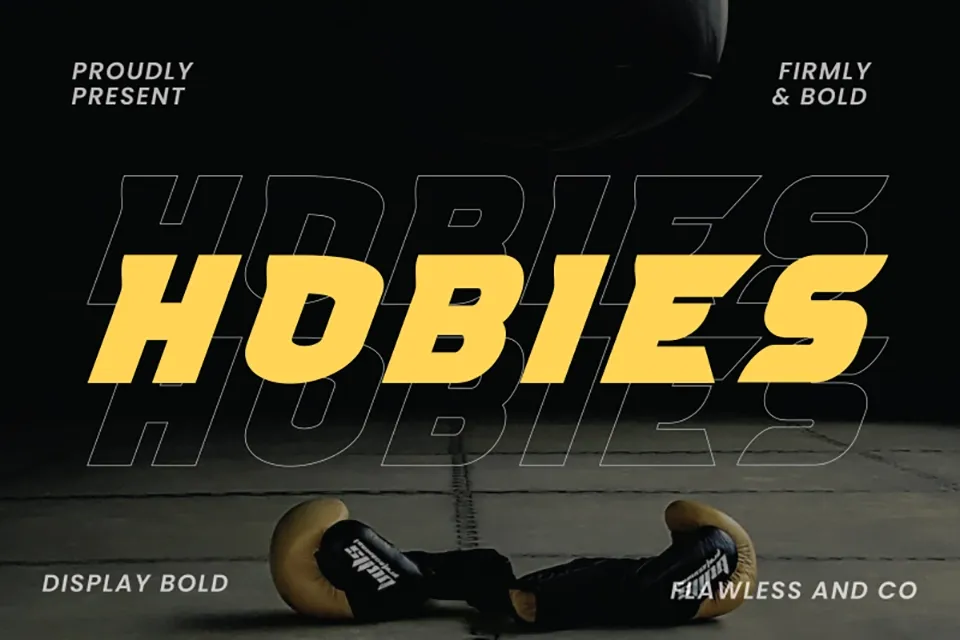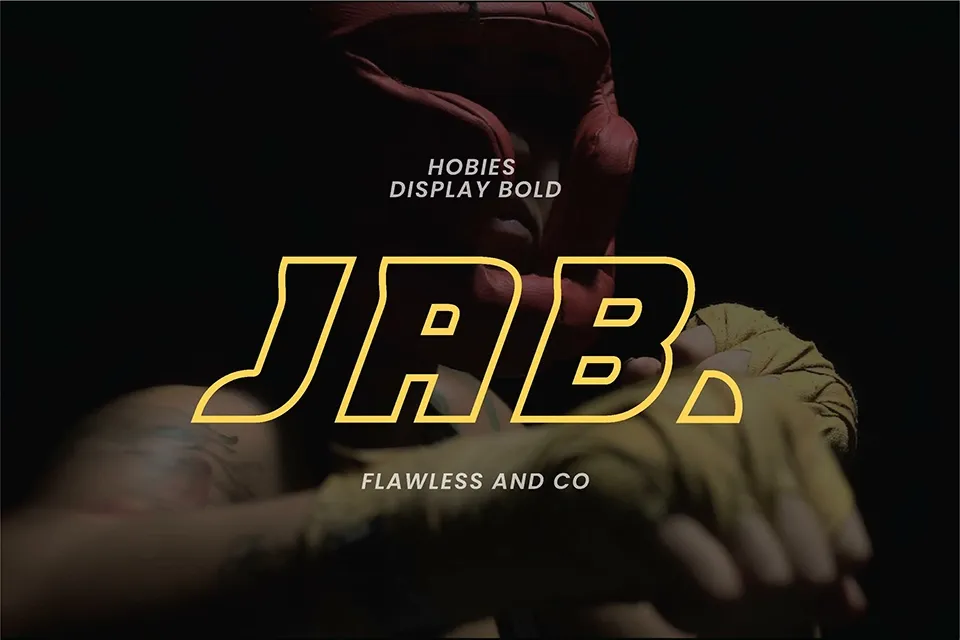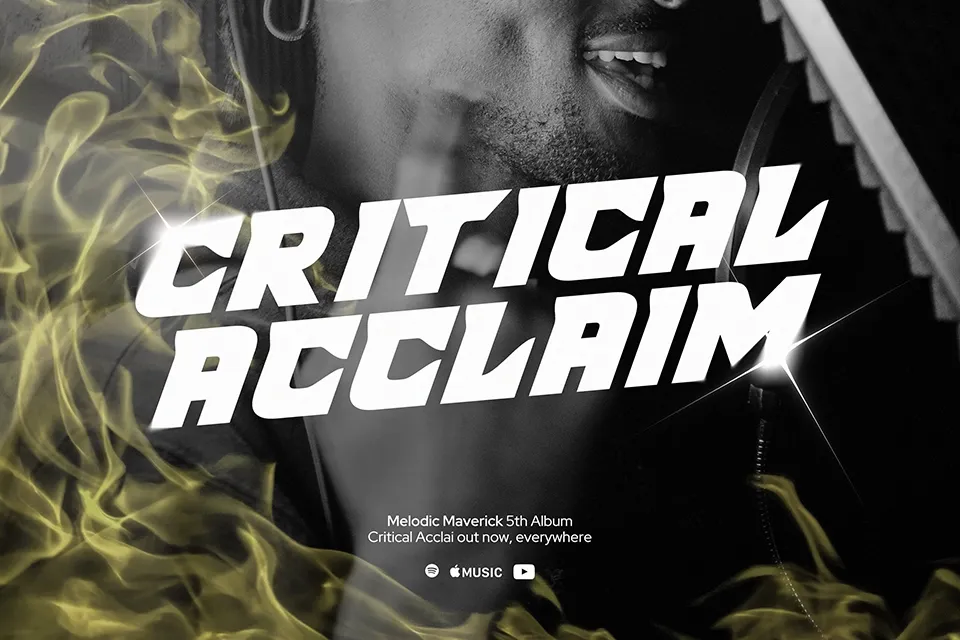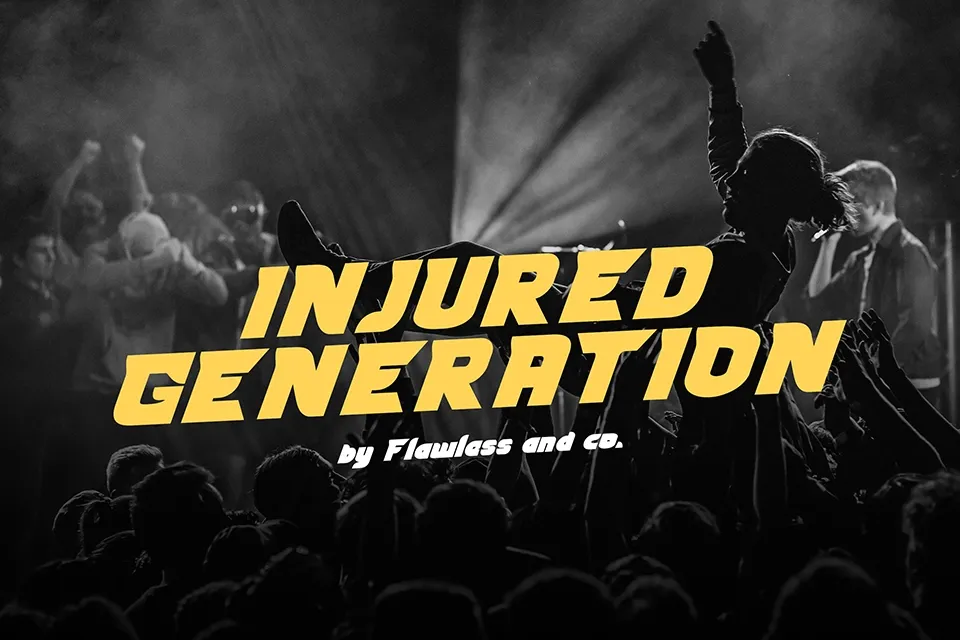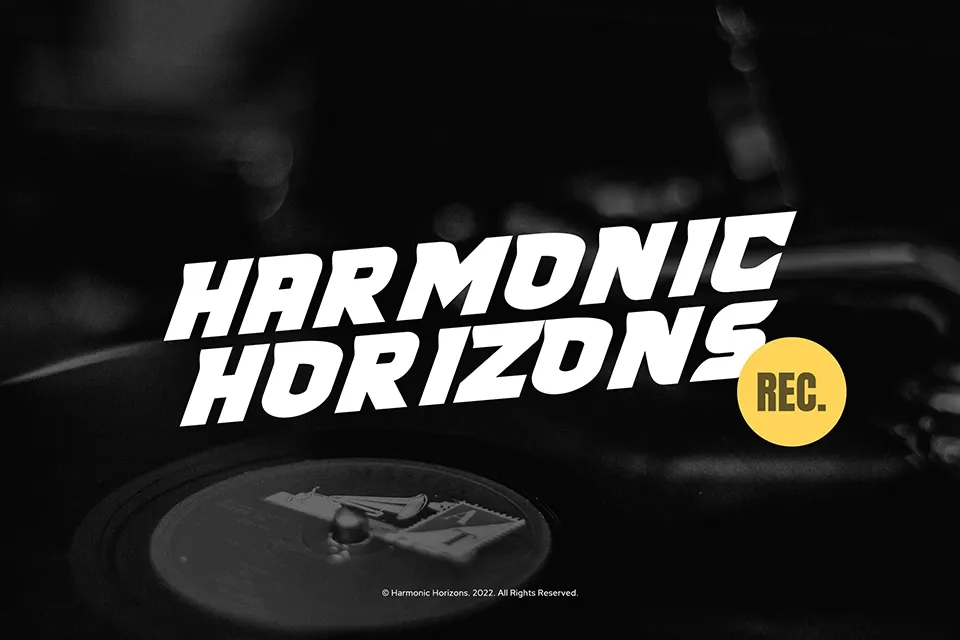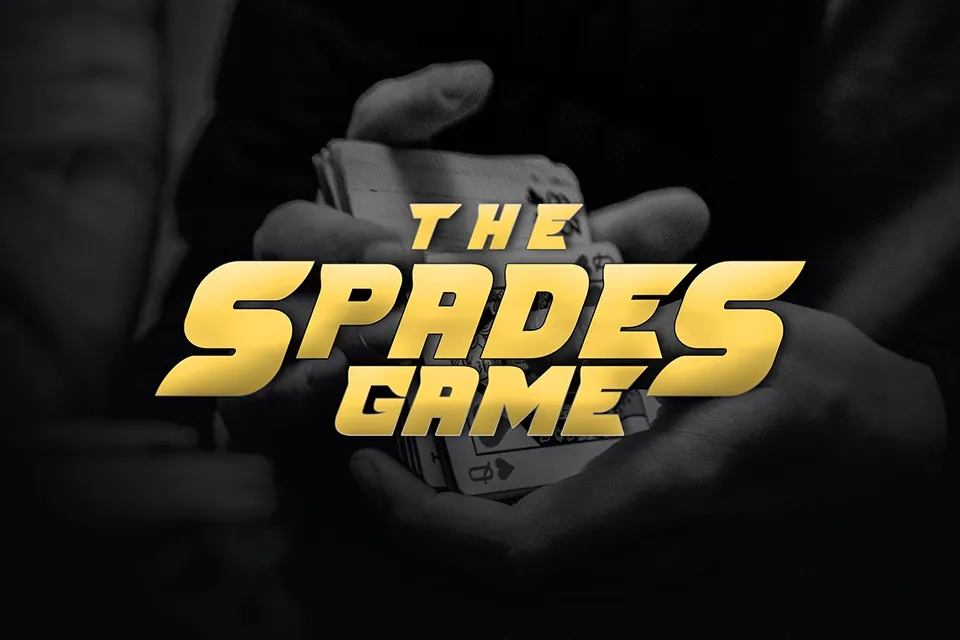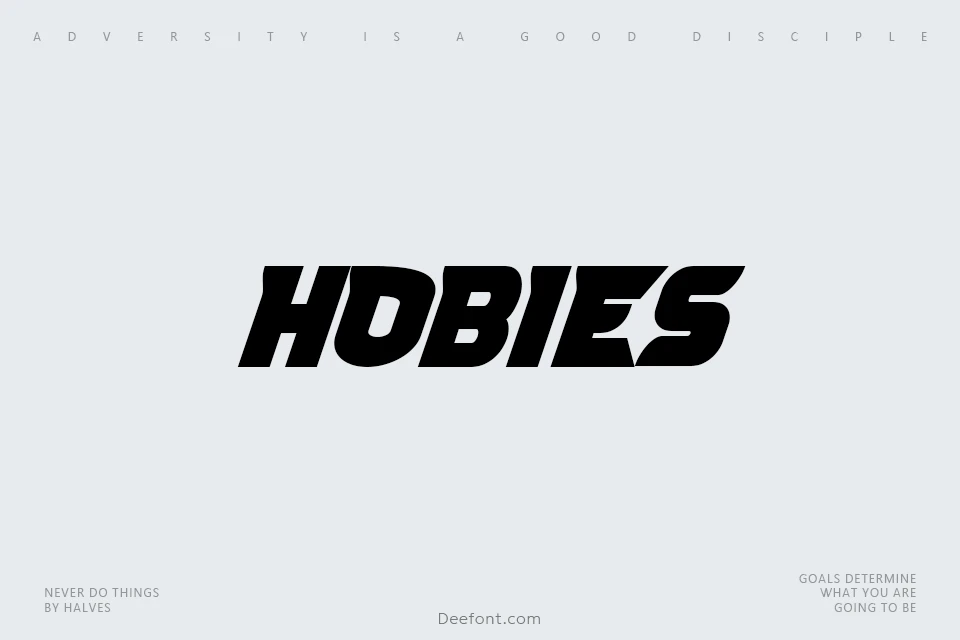
Hobies Font
Hobies Font is a bold and dynamic display typeface designed to make a powerful statement. With its strong, geometric letterforms and firm presence, Hobies is perfect for sports branding, posters, headlines, and any project that demands attention. The font’s modern style combines solid fills with outlined versions, offering versatility and visual impact. Its clean lines and confident shapes ensure excellent readability, even at large sizes. Hobies Font brings energy and determination to your designs, making it an ideal choice for creative work that needs to stand out with strength and clarity.